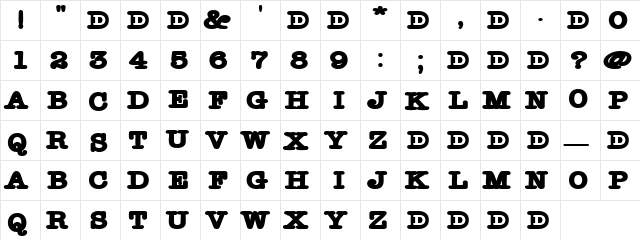
RedFish Regular
Design Context for RedFish Typeface
RedFish takes a measured approach to typography — its balanced proportions and neutral character make it a reliable workhorse for both digital and print work.